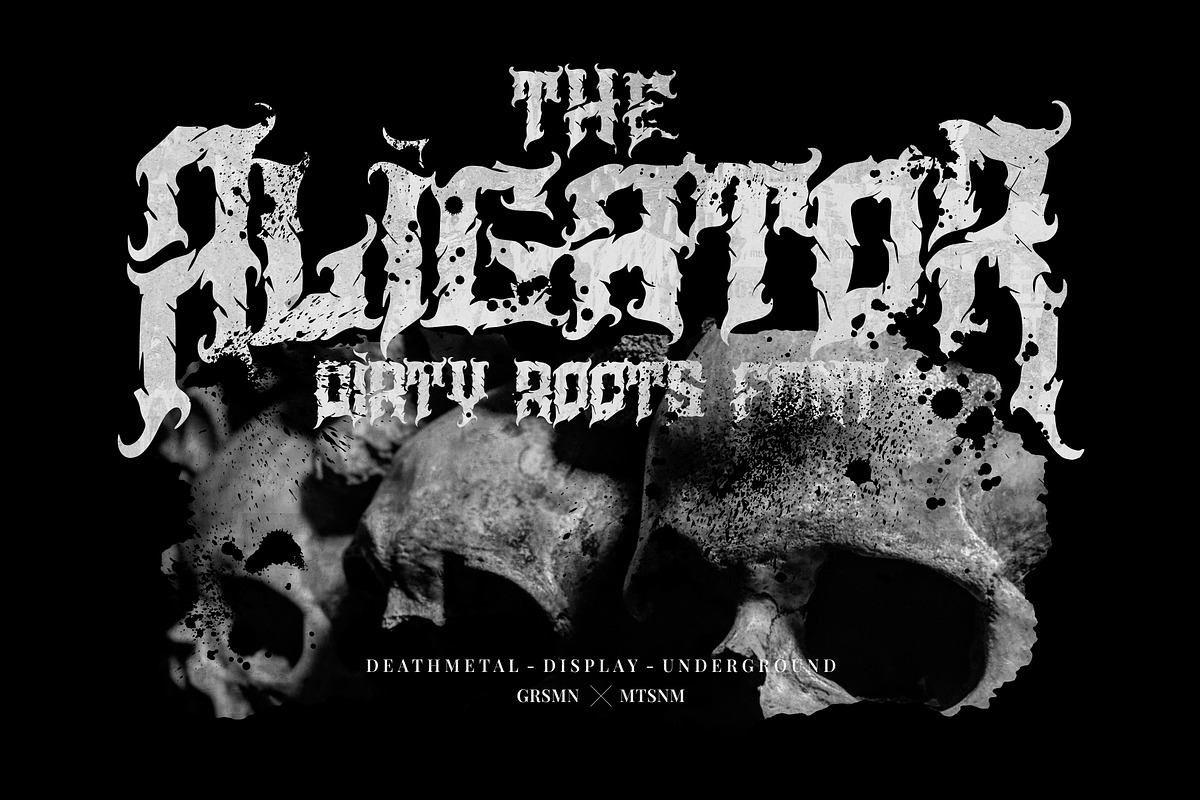
Aligator - Deathmetal Font Free Download
Aligator - Deathmetal Font Free Download is a bold and edgy typeface designed for heavy music branding, album covers, posters, and dark-themed designs. With its jagged edges and aggressive letterforms, it captures the raw energy and intensity of deathmetal culture. Perfect for projects that need to make a strong, rebellious statement. Please note that you must purchase this font for commercial use, but it is available as a free download for testing purposes. Unleash your creativity with Aligator - Deathmetal Font Free Download, and give your designs a fierce, metal-inspired look.